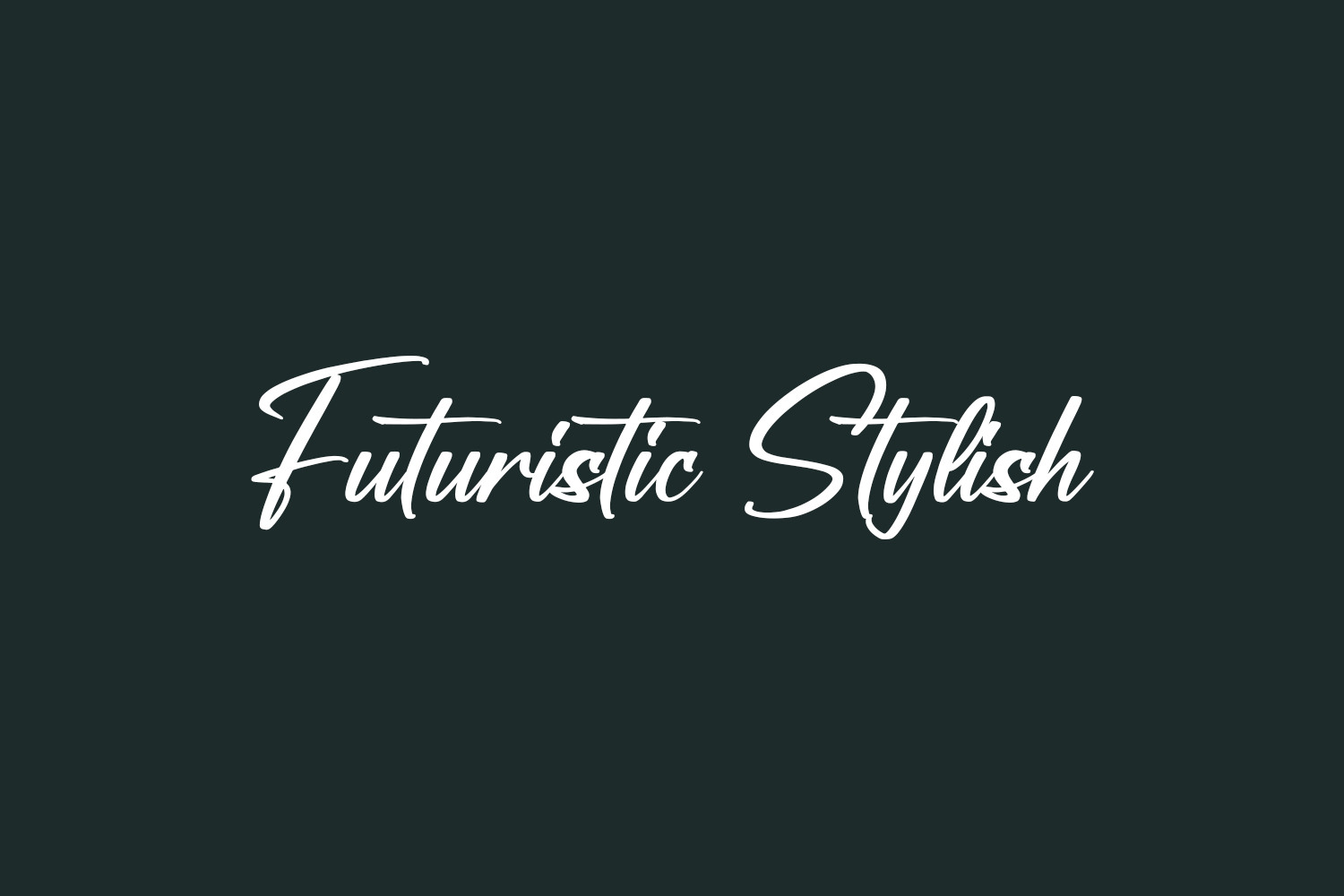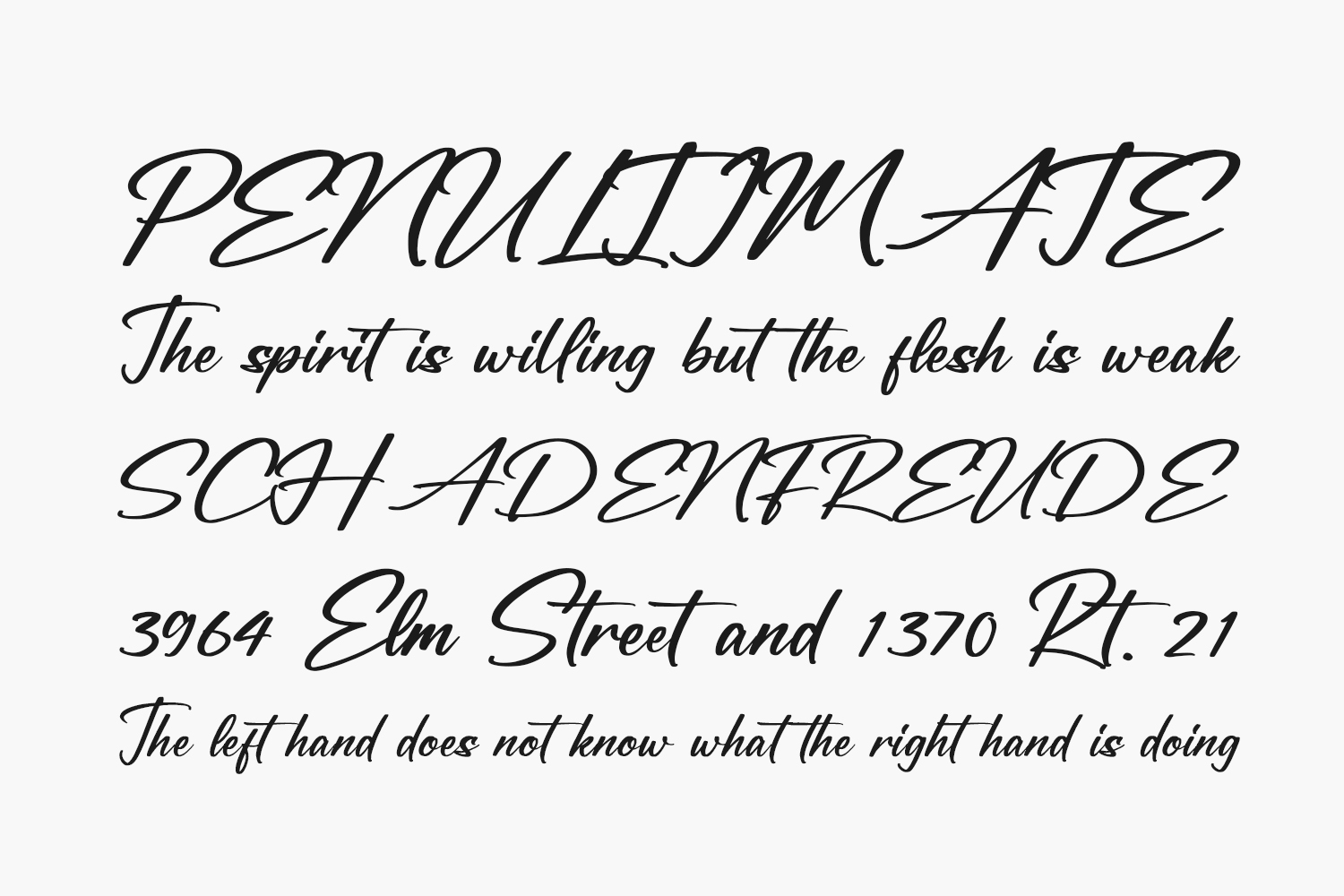
Futuristic Stylish Free Font is an enchanting and graceful calligraphy typeface, where characters gracefully dance along the baseline. Infuse a touch of luxury into your design projects with this font, elevating them to new heights of elegance and charm. Futuristic Stylish Free Font is free for personal use only. Please purchase the full version for commercial use.
Designed by Letterena Studios